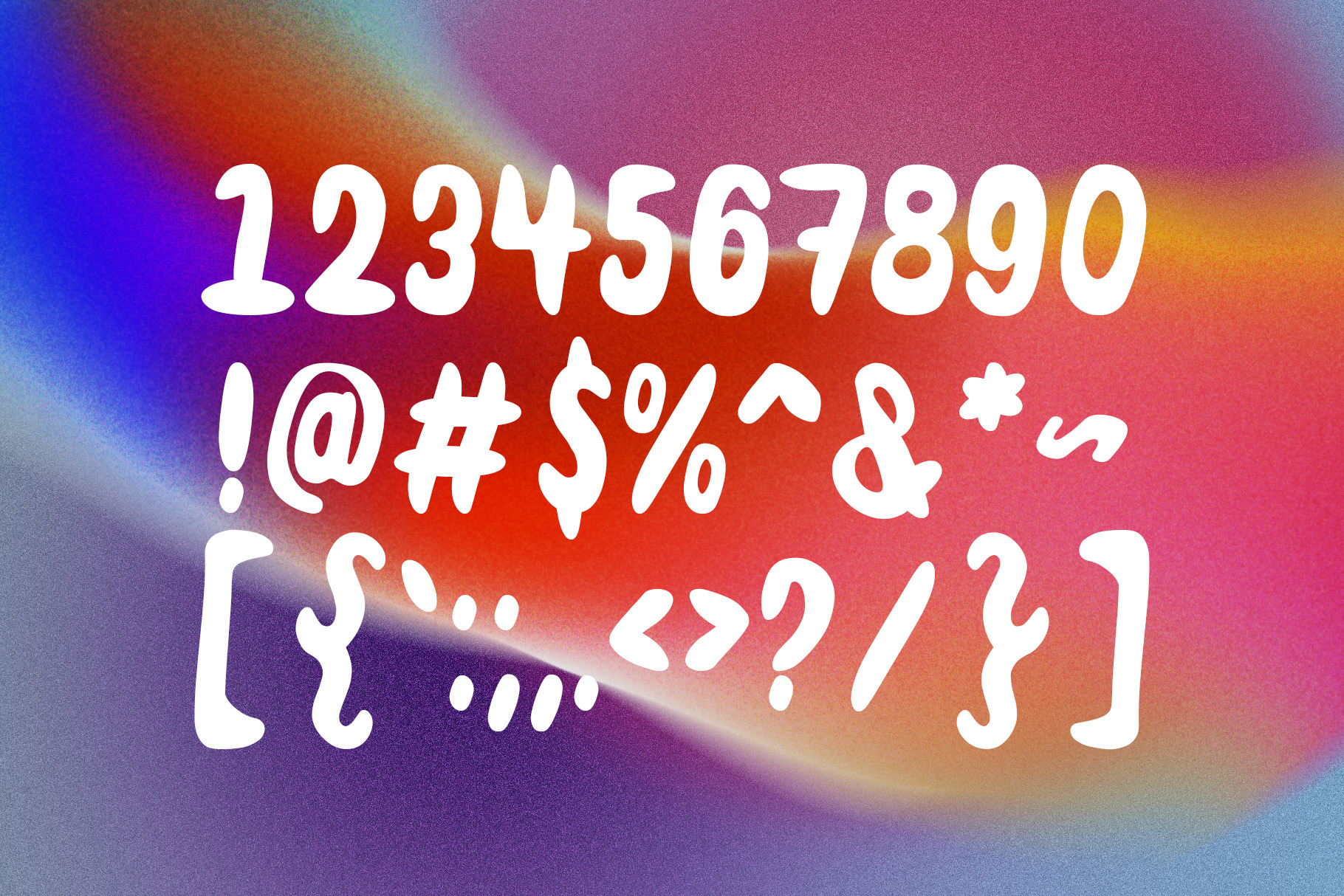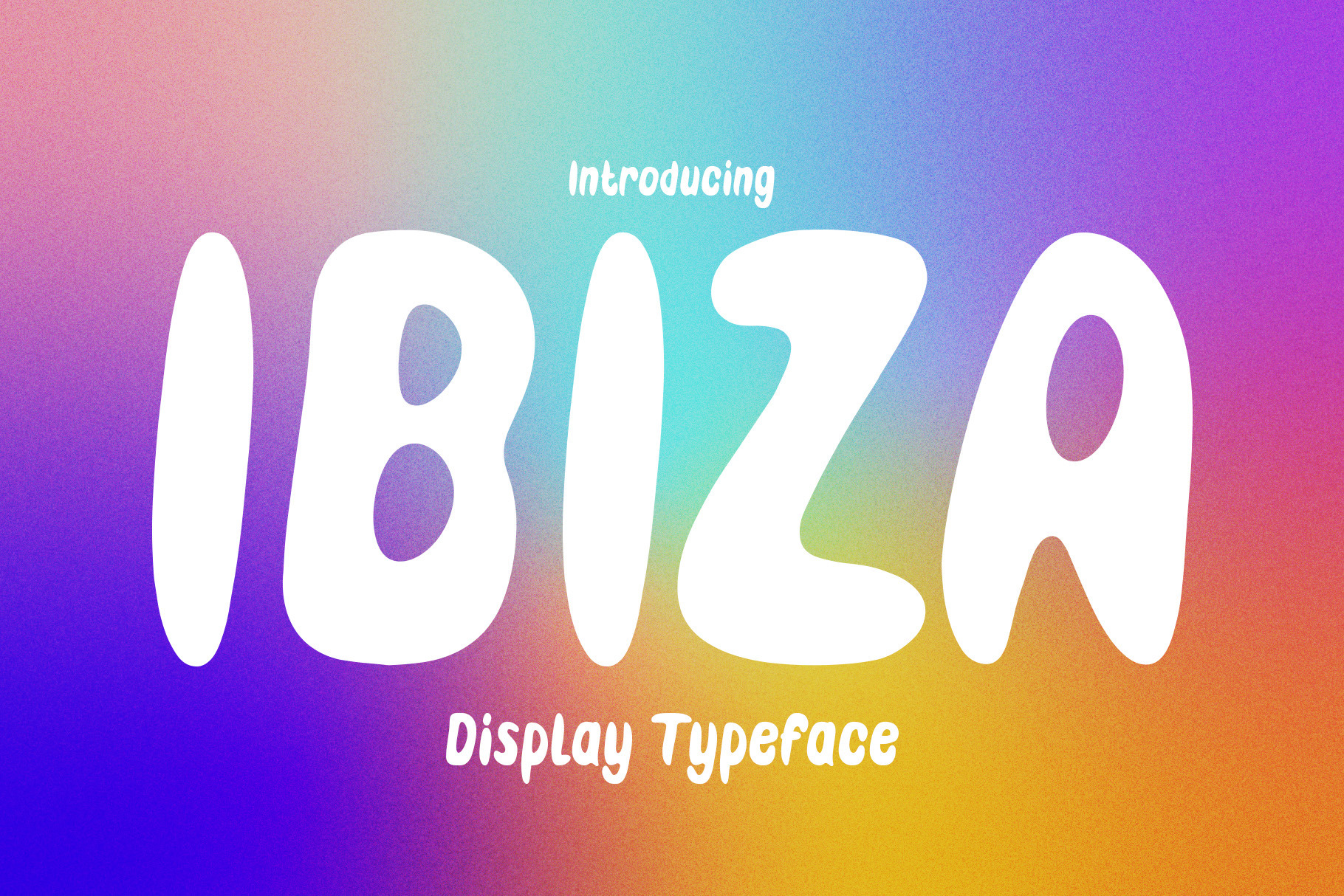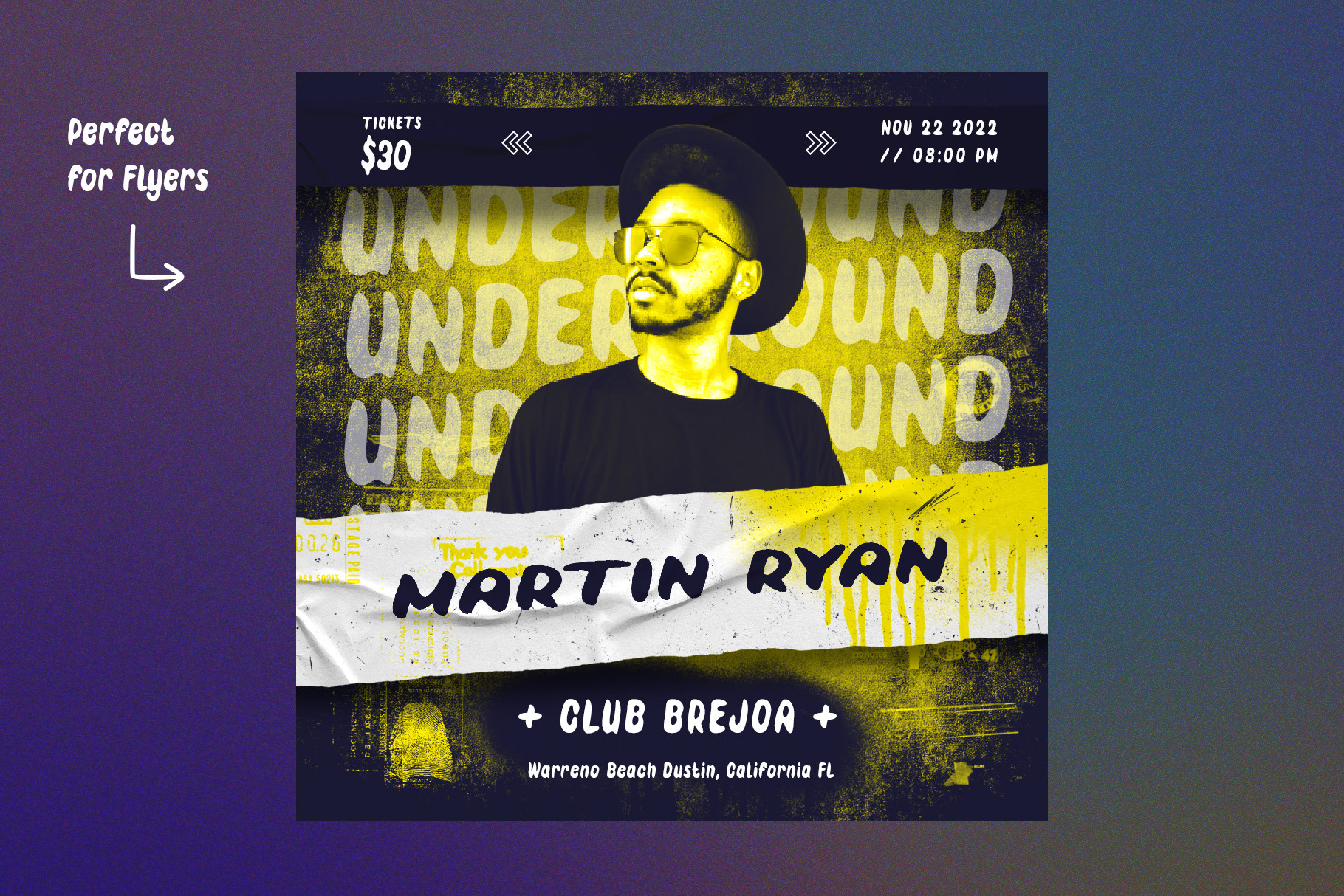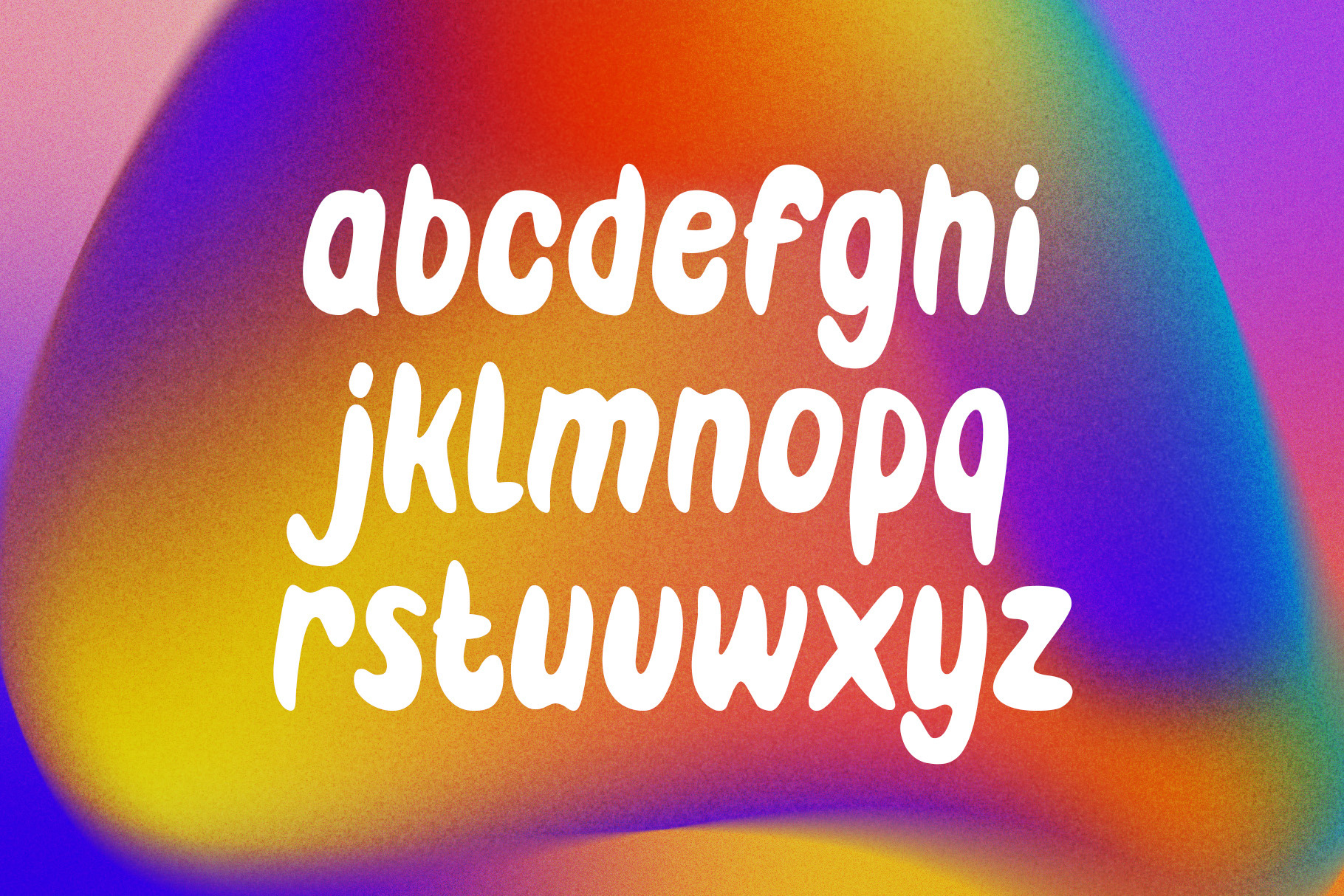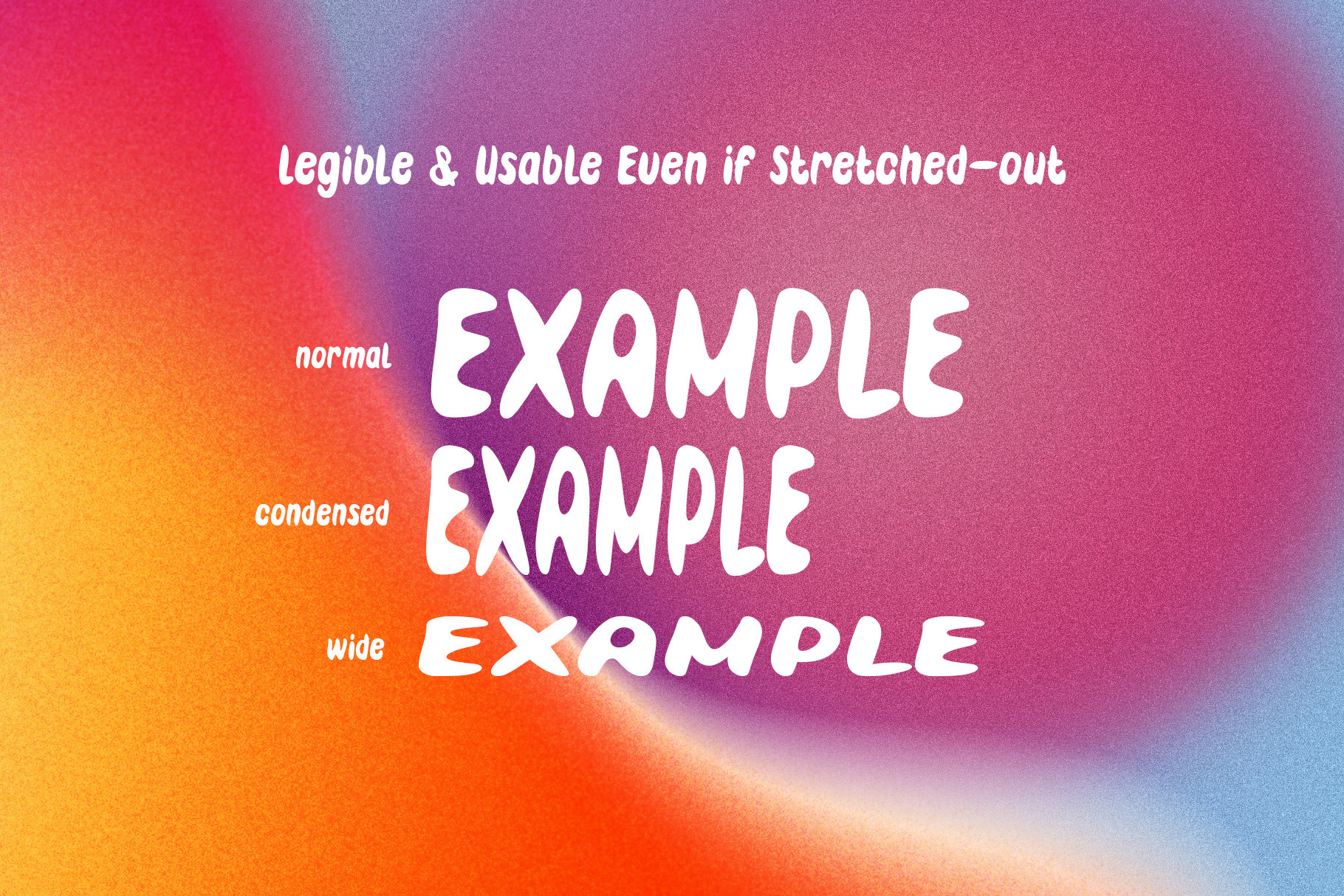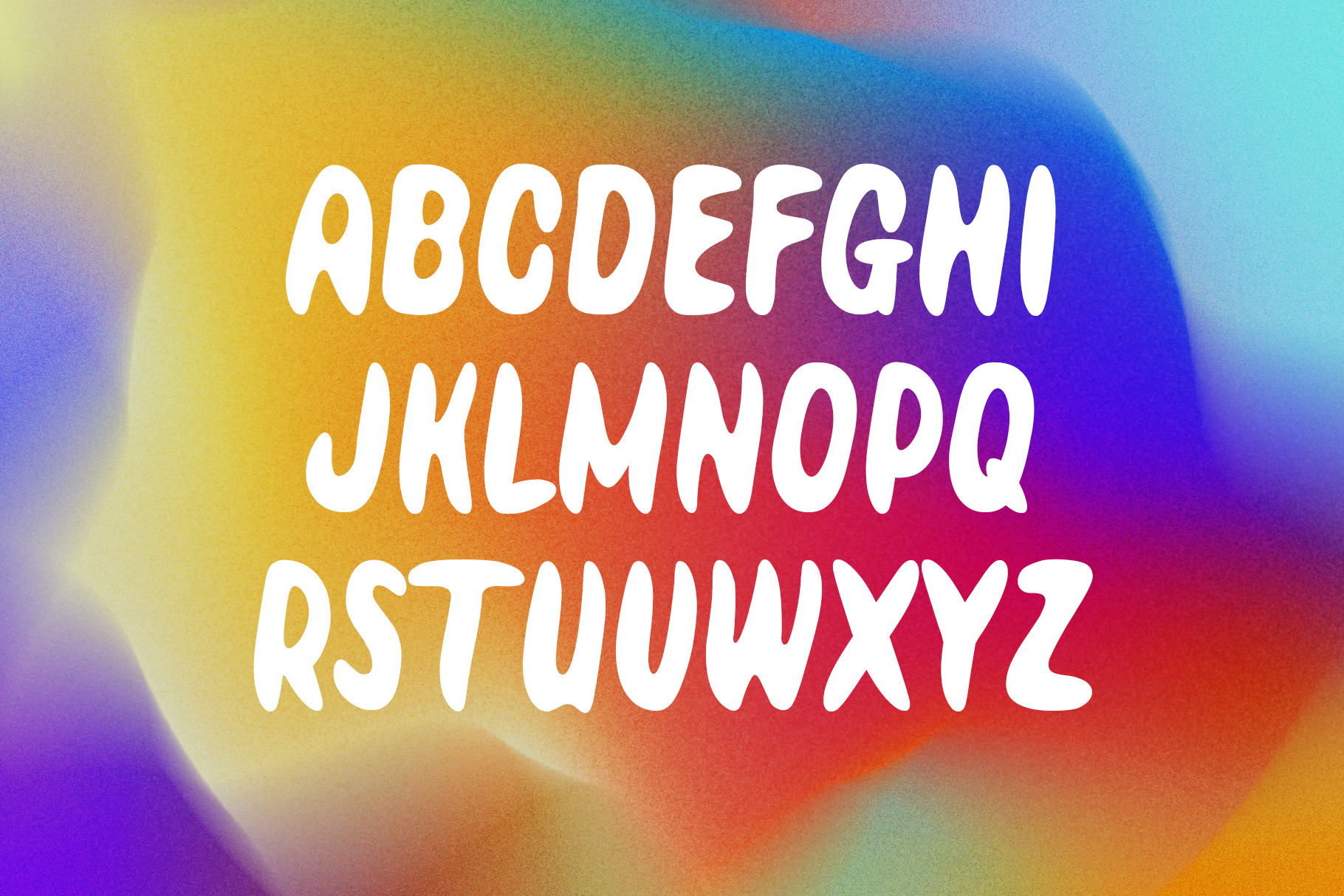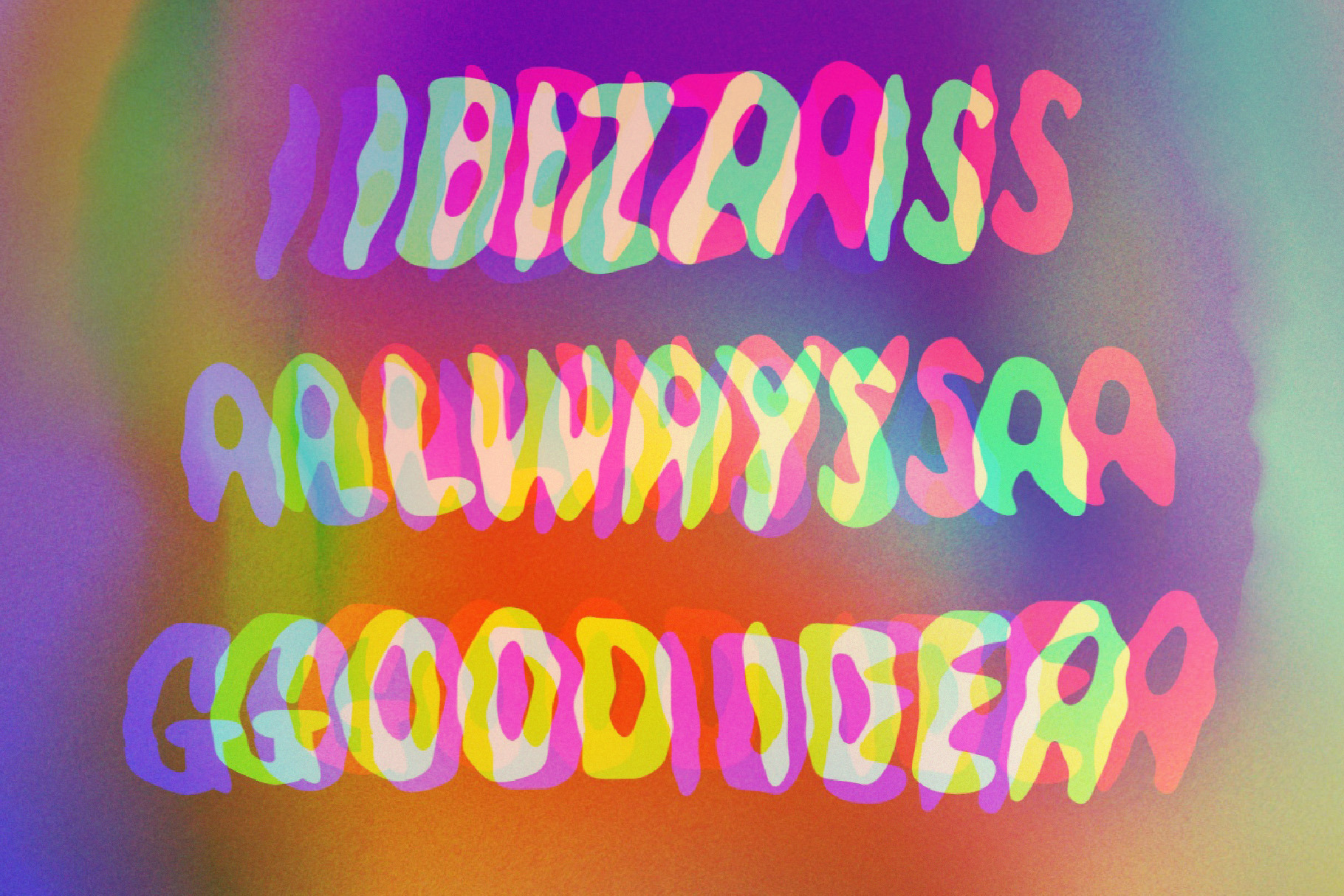
Discover the vibrant energy of Ibisa, a psychedelic hand-drawn display typeface from HipFonts, available exclusively on Creative Market. This unique font brings a touch of retro-inspired creativity to your designs with its smooth, rounded corners and organic flow. Whether you’re designing flyers, posters, social media graphics, children’s books, or custom apparel, Ibisa adapts beautifully to any project. Its legibility remains strong even when stretched or scaled, making it versatile for both digital and print use. Add personality and flair to your branding, invitations, or merchandise with this eye-catching font that captures the free-spirited essence of its namesake island. For designers seeking incredible value, Ibisa is also part of the Creator Bundle on Creative Market. This bundle gives you access to over 225 professional and unique fonts, a collection valued at $3,825, for just $89. It’s the perfect resource for creatives who want variety and quality without breaking the bank. Explore Ibisa and thousands of other design assets at Creative Market. Elevate your projects with fonts that inspire and stand out. Visit https://creativemarket.com today and bring your creative vision to life.